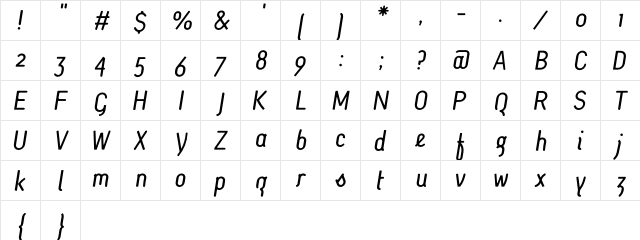
Monolein Kursiv
Design Context for Monolein Typeface
Monolein brings the precise, column-aligned rhythm of monospaced typography to designs that value technical clarity and systematic order. Its italic angle brings a sense of urgency and motion to the letterforms.
Pro Tip: Pair Monolein with a proportional sans for UI contexts where code-style labels and regular body copy need to coexist.